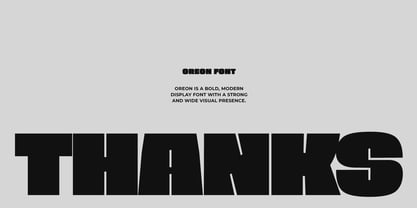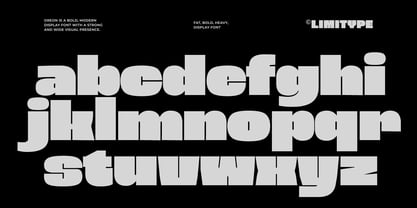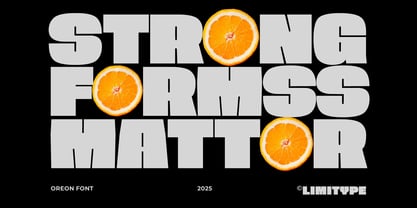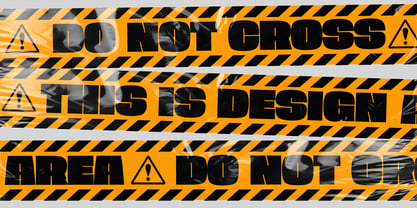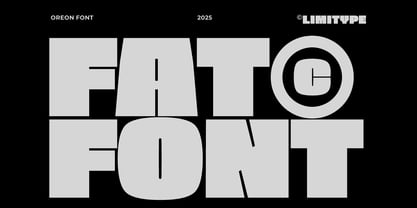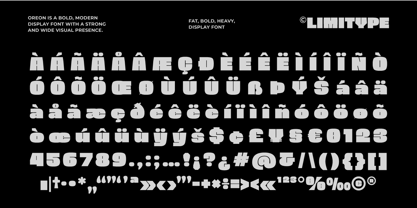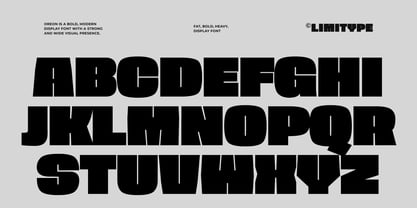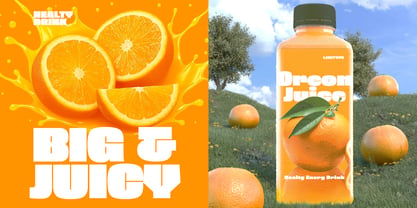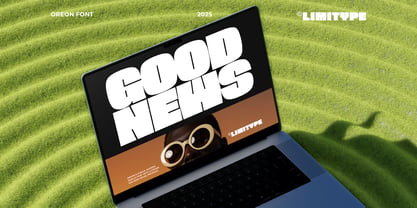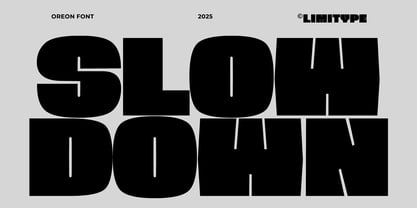
Oreon
von limitype
Die Schriftfamilie Oreon wurde von Muhammad Muammar, Furqan Sudirman entworfen und von limitype veröffentlicht. Oreon enthält 1 Stile. Mehr über diese Familie
Oreon is a modern display typeface featuring strong, consistent strokes and a wide visual presence, designed to deliver high impact and excellent readability. This font is ideal for headlines, main titles, logos, branding, product packaging, posters, and a wide range of commercial design applications. Its solid, well-balanced letterforms communicate messages with clarity, confidence, and professionalism, ensuring strong recognition across both print and digital media. Orion available with: Uppercase Lowercase Number Symbol Multilingual